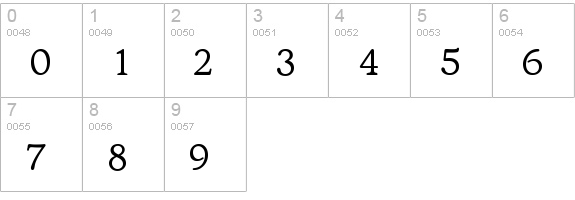
Seneca Regular is the standard, neutral variant in the Seneca typeface family \xE2\x80\x94 well suited to general body text, paragraphs, and standard typographic work.
Seneca Regular font exudes a timeless elegance that is sure to captivate any viewer. Its clean and crisp lines lend a sense of sophistication to any design project. With its medium weight and balanced proportions, this font strikes the perfect balance between readability and aesthetics. Whether used for headlines, body text, or logo designs, Seneca Regular font adds a touch of class and professionalism to any project. Its versatility allows it to seamlessly adapt to various design styles, making it a go-to choice for both print and digital applications. The beauty of Seneca Regular font lies not only in its design but also in its availability. It is freely available to download at FontsMarket.com, allowing designers and creatives to access this remarkable font without any cost. This accessibility ensures that Seneca Regular font can be enjoyed by a wide range of users, from students to professionals, without any barriers. The legibility of Seneca Regular font is also worth mentioning. Its well-defined letterforms and generous spacing between characters make it easy to read even at smaller sizes. This makes it a perfect choice for long paragraphs of text, ensuring that the message is conveyed clearly and effortlessly. Overall, Seneca Regular font is a true gem in the world of typography. Its timeless design, versatility, and free availability make it a must-have for any designer's toolkit. Whether used in branding, editorial design, or web design, this font will undoubtedly elevate any project to new heights of elegance and sophistication. So why wait? Head over to FontsMarket.com and download Seneca Regular font today to add a touch of class to your next design endeavor.